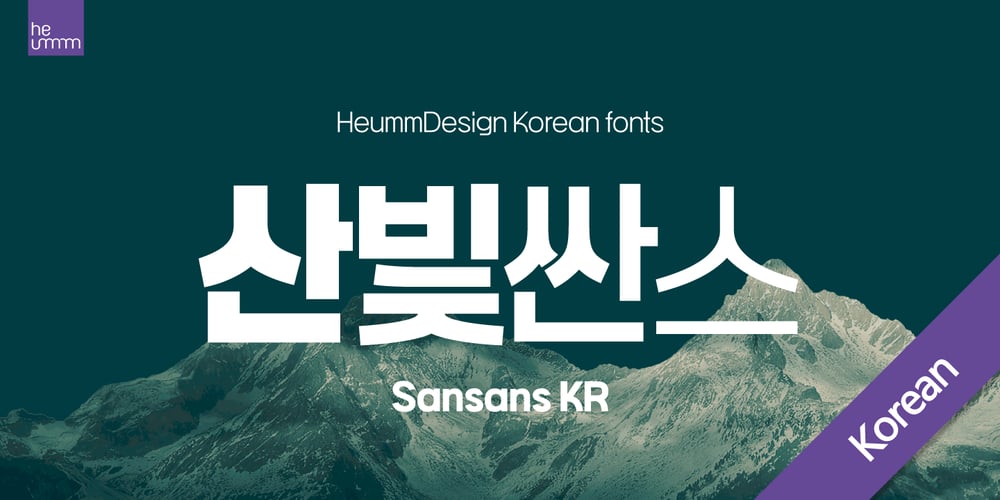
HU Sansans KR
HU Sansans KR font
HU Sansans KR Font Family was designed by Yehyeong Lee and published by Heummdesign. HU Sansans KR contains 4 styles and family package options. HU Sansans KR is a San-serif Korean fonts.It is a solid and trendy full square typeface that contains powerful and bright energy.I created a young and bright feeling by making a blank at the bottom of the first consonant of the initial letter, and the curve of the first part continued the bright feeling of the font. By configuring 4 types of font families, the usability of typefaces has been increased.